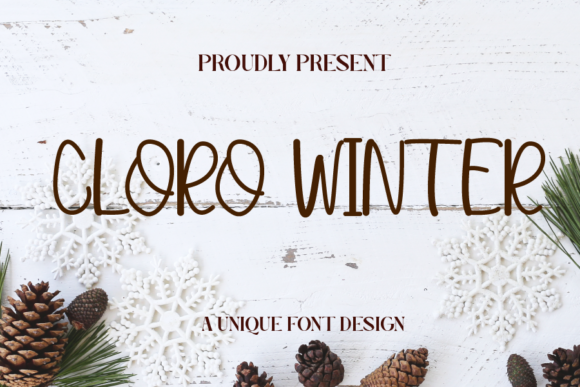
Cloro Winter Font for Cute Handmade Crafts
As a fellow crafter and small business owner, I know that finding the perfect typeface can make or break a product line, which is why Cloro Winter has become such a staple in my digital asset library. This specific Script Handwritten typeface brings a unique blend of playfulness and legibility that is often hard to find in decorative Fonts. When you are designing for physical products like stickers, labels, or apparel, you need more than just a pretty letterform; you need a tool that translates beautifully from screen to substrate. Cloro Winter is a cute and quirky handwritten font that adds personality without sacrificing the professional finish your customers expect. Whether you are creating SVG files for Cricut projects or laying out printable wall art, this font ensures your creative ideas stand out in a crowded marketplace.
Using Cloro Winter for Product Labels and Packaging Design
When designing packaging for handmade goods, Cloro Winter serves as an excellent choice for establishing brand warmth and approachability through its distinct Script Handwritten aesthetic. For sellers of candles, soaps, baked goods, or boutique cosmetics, the typography on the label is often the first interaction a customer has with the product, and using expressive Fonts like this one signals that the item was made with care. The quirky nature of Cloro Winter works exceptionally well for artisanal brands that want to avoid the sterile look of mass-produced items while maintaining enough structure to remain readable at smaller sizes. I have found that this font shines brightest when used for product names or short taglines rather than dense ingredient lists, allowing the unique character shapes to breathe and capture attention on a shelf or in a product photo.
Practical application is key when using Cloro Winter for packaging because ink spread and material texture can alter how the font appears. On uncoated paper or kraft tags, the slightly textured edges of this handwritten style mimic natural handwriting, enhancing the organic feel of eco-friendly products. However, if you are printing on glossy vinyl or plastic, ensure you test the weight of the strokes, as some delicate connectors in script fonts can get lost against shiny backgrounds. For commercial sellers, this font helps create a cohesive visual identity across different product lines, tying together disparate items like jar labels, thank-you cards, and shipping box stamps with a unified, handcrafted voice that builds customer loyalty and recognition.
Optimizing Cloro Winter for Vinyl Decals and Cutting Machines
Crafters who rely on cutting machines will appreciate that Cloro Winter offers a balance of style and cuttability that makes it superior to many other intricate Script Handwritten Fonts for vinyl projects. When creating car decals, water bottle stickers, or laptop skins, the primary concern is always whether the design will weed cleanly and adhere without breaking, and this font’s stroke consistency helps mitigate common production headaches. Unlike extremely thin calligraphy scripts that tear during weeding or fail to stick to curved surfaces, Cloro Winter maintains enough body in its letterforms to survive the transfer process while still looking delicate and feminine. This durability makes it a reliable choice for selling physical decals on platforms like Etsy, where product quality directly impacts reviews and repeat business.
- Weeding Efficiency: Test Cloro Winter at various sizes to find the sweet spot where the quirky details remain visible but the negative spaces are large enough to remove easily.
- Vinyl Compatibility: This font performs best with permanent adhesive vinyl and heat transfer vinyl (HTV) due to its balanced stroke width, reducing the risk of peeling edges on shirts or mugs.
- Mirroring for HTV: Always remember to mirror your design before cutting Cloro Winter for apparel, as the asymmetrical, handwritten nature of the letters makes backward text immediately obvious and unprofessional.
- Layering Potential: Use this font as a top layer over a solid block of color or a simple sans serif shadow to increase contrast and readability on busy fabric patterns.
Designing Wedding Stationery and Event Invites with Cloro Winter
For stationery designers and DIY brides, incorporating Cloro Winter into wedding suites provides a modern alternative to traditional formal scripts while retaining the romance expected in matrimonial Fonts. The "cute and quirky" descriptor is particularly relevant here, as modern weddings are increasingly moving away from stiff formality toward personalized, joyful celebrations that reflect the couple's genuine personality. This Script Handwritten typeface is ideal for less formal elements of the stationery suite, such as welcome signs, seating charts, menu cards, and favor tags, where a relaxed vibe is preferred over rigid elegance. It pairs beautifully with minimalist layouts, adding a touch of whimsy to clean white cardstock or acrylic signage without overwhelming the overall design hierarchy.
Readability remains paramount in event stationery, and Cloro Winter strikes a functional balance that allows guests to quickly scan information while enjoying the decorative flair. When using this font for invitations, I recommend reserving it for the couple’s names, the date, or header phrases like "You Are Invited," while utilizing a clean sans serif or simple serif font for the logistical details like time, address, and RSVP instructions. This strategic pairing ensures that the most important information is accessible to all guests, including older relatives who may struggle with highly stylized typography. Furthermore, because Cloro Winter feels personal and authentic, it enhances the emotional connection of the invitation, making recipients feel like they are receiving a handwritten note rather than a generic template.
Creating Bestselling Printables and Digital Downloads
Digital product creators can leverage Cloro Winter to add significant perceived value to printables, planners, and social media templates by utilizing its distinctive Script Handwritten charm. In the saturated market of digital downloads, standing out requires assets that feel premium and intentional, and this font delivers a bespoke quality that elevates simple designs above competitors using free or overused Fonts. Whether you are designing daily planner pages, budget trackers, or inspirational wall art, the quirky characteristics of Cloro Winter introduce a human element that resonates with buyers seeking organization tools that don't feel corporate or cold. The font’s versatility allows it to function equally well as a bold title on a checklist or a subtle accent on a monthly calendar spread.
Beyond mere aesthetics, successful font pairing with Cloro Winter involves careful attention to spacing, scale, and color contrast to ensure the final product is commercially viable. Avoid placing this font directly adjacent to other decorative or display typefaces, as the competing styles will confuse the viewer and dilute the impact of your message. Instead, establish a clear hierarchy where Cloro Winter handles the emotional hook or primary headline, while the secondary font manages the informational heavy lifting. Experiment with adjusting the tracking (letter spacing) of the supporting font to match the visual density of Cloro Winter, creating a harmonious rhythm across the layout. By treating this handwritten gem as the star performer and casting reliable supporting actors around it, you create designs that are not only beautiful but also functional, readable, and ultimately more profitable for your creative business.